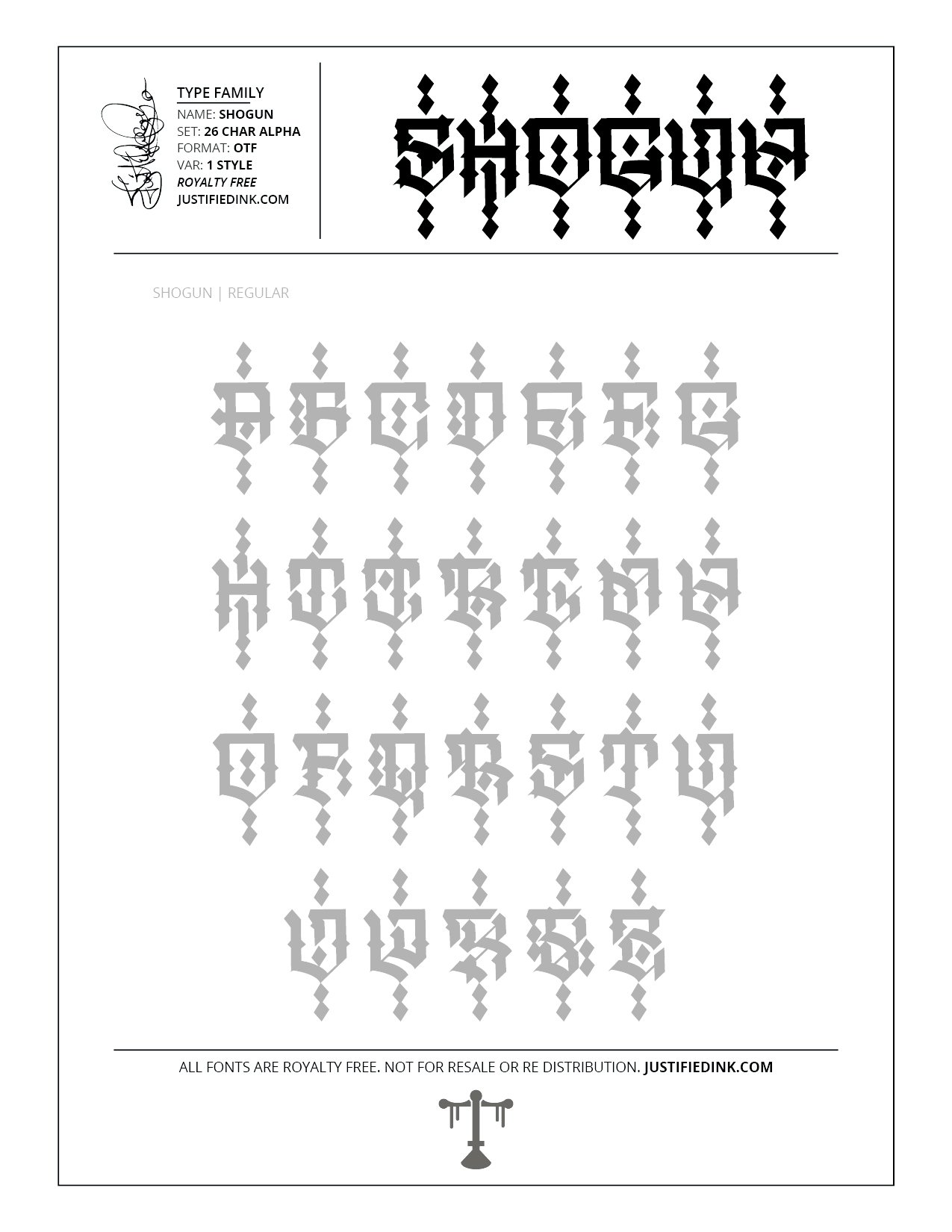
Shogun (1 style) - Custom Font by Justified Ink
NAME: Shogun
The shotgun shogun is coming in hot with the double shot and striking everything in between. Shogun is blocked up and knocked out westernized letters with razor sharp strokes.
This font is part of the collection by Justified Ink, called Blackletter II. After 15+ years creating, I began to focus on building personal libraries of my work. The Blackletter II Collection was created through writing page after page, and countless hours over a 2 year span of daily practice. Each font from this collection has been hand drawn, manually vectored, and custom set as a type-able font. It comes in a full set of 26 char alpha. Each font family has variations in styles and/or non-alpha chars.